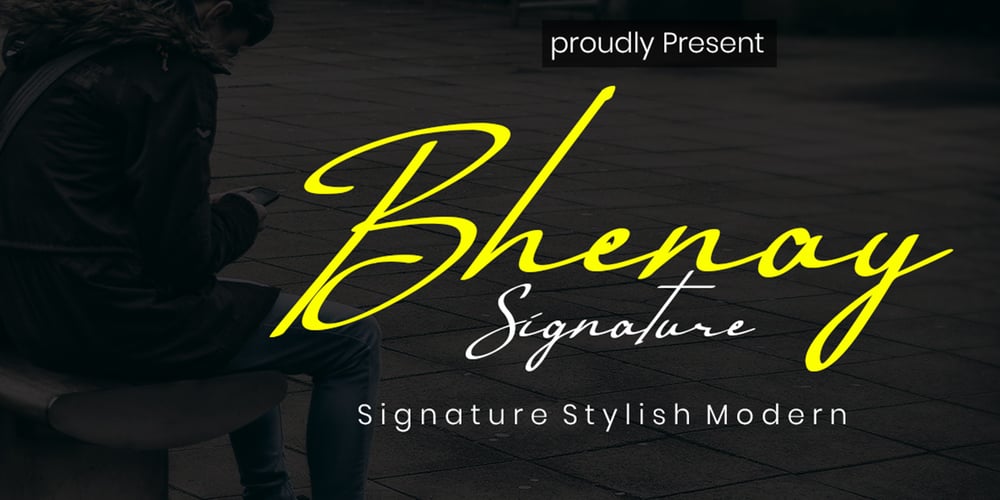
Bhenay Signature
Bhenay Signature font
Bhenay Signature Font Family was designed by Mohamad Candirah and published by MC Creative. Bhenay Signature contains 1 styles and family package options. Bhenay Signature is script font which natural movement and elegant for signature style.is perfect for branding projects, logo, wedding designs, social media posts, advertisements, product packaging, product designs, label, photography, watermark, invitation, stationery and any projects that need handwriting taste. What’s Included : Standard glyphs Ligature Works on PC & Mac Accessible in the Adobe Illustrator, Adobe Photoshop, Adobe InDesign, even work on Microsoft Word. PUA Encoded Characters – Fully accessible without additional design software. Fonts include multilingual support for; ä ö ü Ä Ö Ü ß ¿ ¡